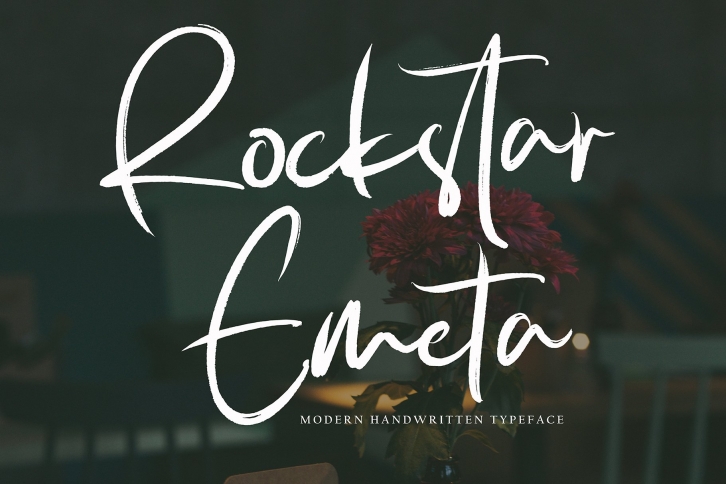
Rockstar Emeta is a beautiful font that was designed by Pineungtype. It's a great choice for designers and creatives who need such a font. It was released on September 1, 2022 and the file size is 16.34 MB. Rockstar Emeta may give a more youthful, expressive and casual look to your project. It is a very beautiful, refined, elegant, and high-quality font.